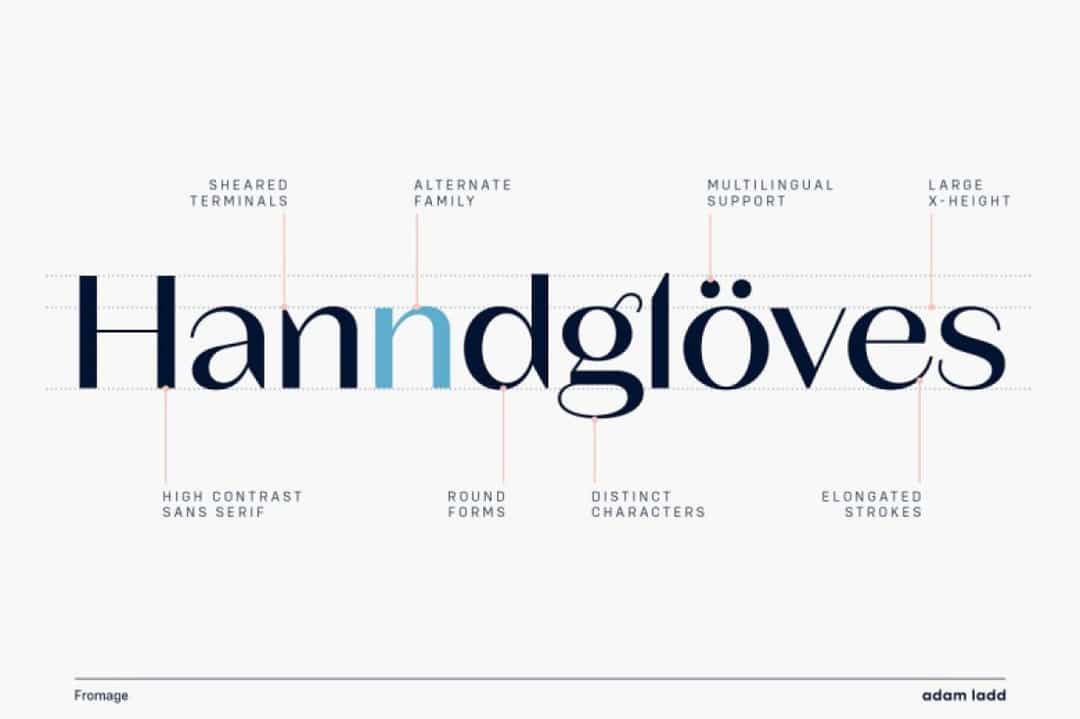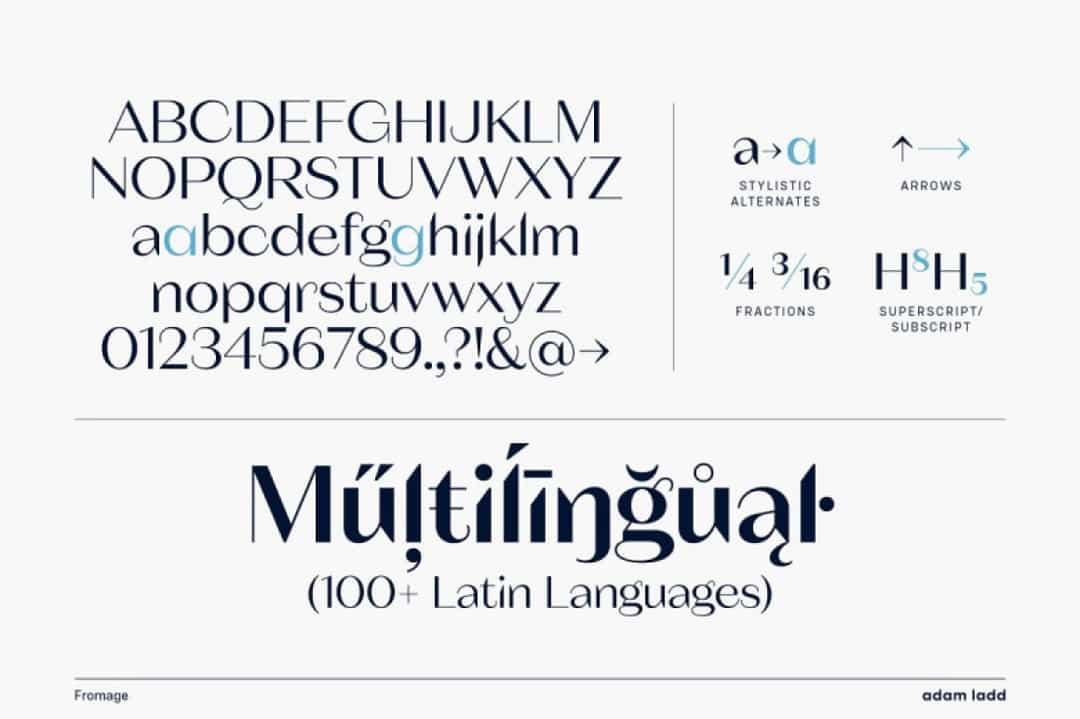
Fromage font is an eye-catching contemporary contrast sans-serif style, designed by Adam Ladd’s signature style of dramatic angled terminals and extended stroke endings for added visual interest and control. Ideal for beauty, fashion or luxurious branding and typography applications.